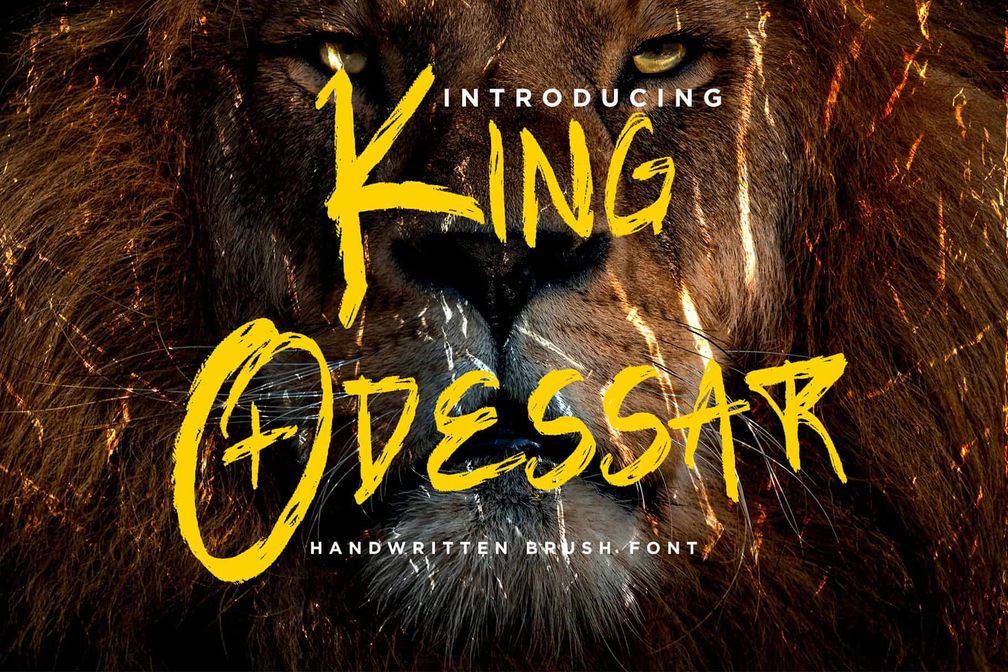
King Odessar
King Odessar – Bold & Expressive Handwriting Brush Font
King Odessar is a commanding handwriting brush font that brings bold energy and artistic flair to your designs. With rugged brush strokes and dynamic movement, this font is perfect for those looking to make a statement. Whether you’re designing logos, posters, apparel, or social media graphics, King Odessar adds confidence and personality to every project.
• Bold Brush Strokes: Crafted with expressive pressure and texture for an authentic hand-painted look.
• Eye-Catching & Impactful: Designed to grab attention while remaining readable across digital and print formats.
• Versatile Usage: Ideal for branding, headlines, t-shirts, product packaging, advertising, and more.
• Natural Flow: Organic rhythm in every letter makes it feel hand-crafted and unique.
• Multilingual Support: Includes uppercase, lowercase, numbers, punctuation, and accented characters.